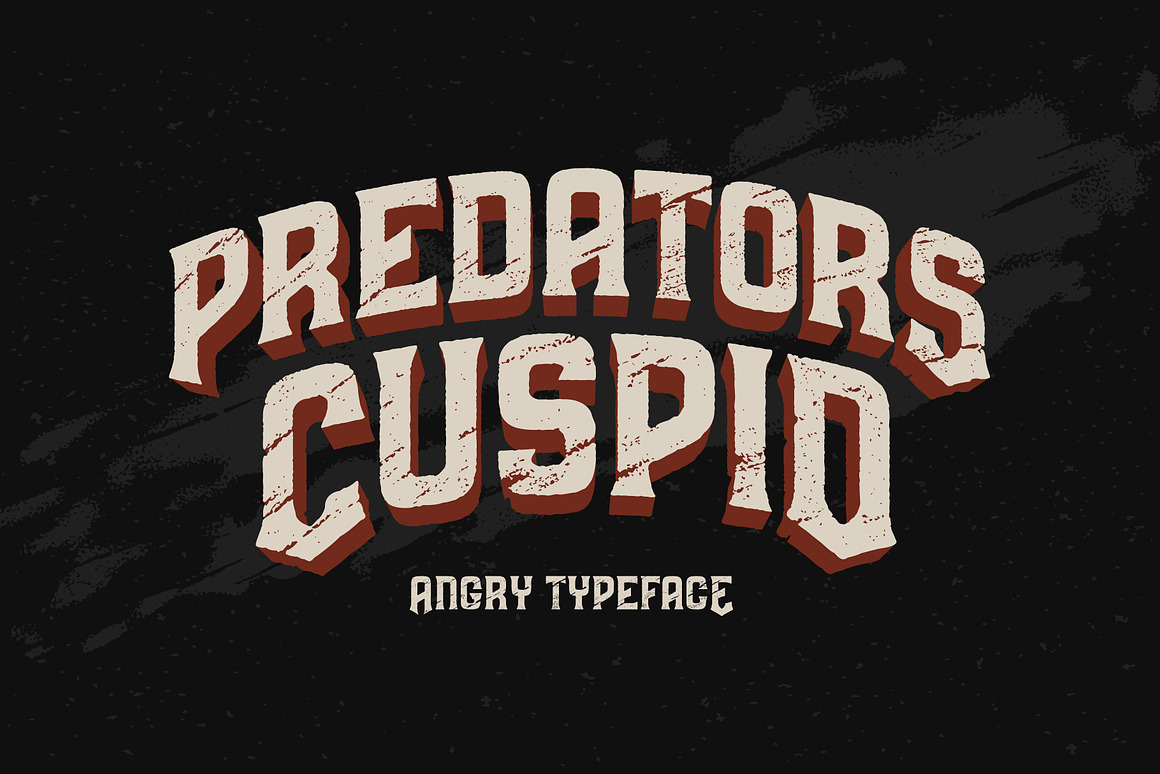
Predators Cuspid Font
Predators Cuspid Font is perfect for aggressive gaming branding, predatory sports team logos, fierce action movie titles, hunting equipment marketing, survival gear packaging, aggressive advertising campaigns, competitive esports graphics, and intimidating poster design. This ferocious typeface works exceptionally well in both digital applications and print media where primal power and predatory dominance are essential design elements.
What makes Predators Cuspid Font so exciting is its savage interpretation of nature's apex predators through razor-sharp letterforms that channel the lethal precision and hunting instincts of the animal kingdom's most fearsome creatures. The font features menacing characters with fang-like serifs, predatory angles, and aggressive proportions that evoke the deadly efficiency of natural hunters and the primal fear they inspire. Its ferocious personality and predatory heritage make it ideal for brands seeking to establish dominance in competitive markets while communicating unstoppable power, hunting precision, and the relentless drive to capture their prey.
The Predators Cuspid Font family includes multiple weight variations from bold to ultra-savage, along with distressed alternates and predatory ornamental elements. Each style maintains the typeface's ferocious character while offering comprehensive character sets including aggressive numerals, hunting-inspired punctuation marks, and special symbols designed to enhance competitive communications and predatory branding efforts across various fierce contexts.
This extraordinary typeface represents the perfect fusion of natural predatory instincts and contemporary design power for gaming and competitive industries. Whether you're developing aggressive esports team identities, creating hunting gear promotions, or designing competitive sports materials, Predators Cuspid Font Free Download delivers the savage intensity and versatility needed to dominate competitive environments. The font's predatory aesthetic makes it particularly effective for gaming companies, sports teams, outdoor gear brands, and businesses celebrating the killer instinct and competitive dominance.
The meticulously engineered predatory construction and optimized savage performance in Predators Cuspid Font ensure maximum intimidation factor while maintaining clear communication across all competitive applications. Its ferocious presence makes it ideal for aggressive branding, predatory marketing campaigns, and competitive communications where its full savage character can create unforgettable impressions and establish immediate association with dominance, power, and predatory excellence.